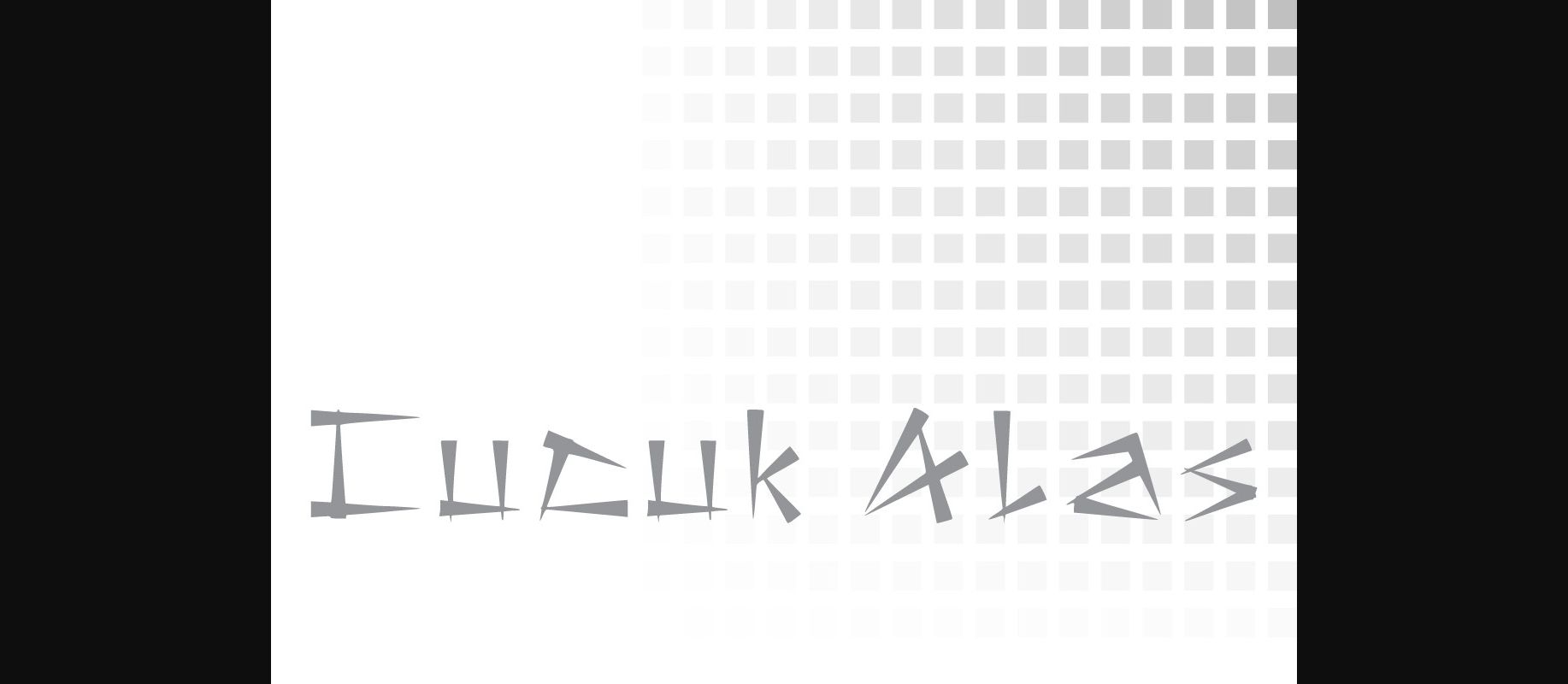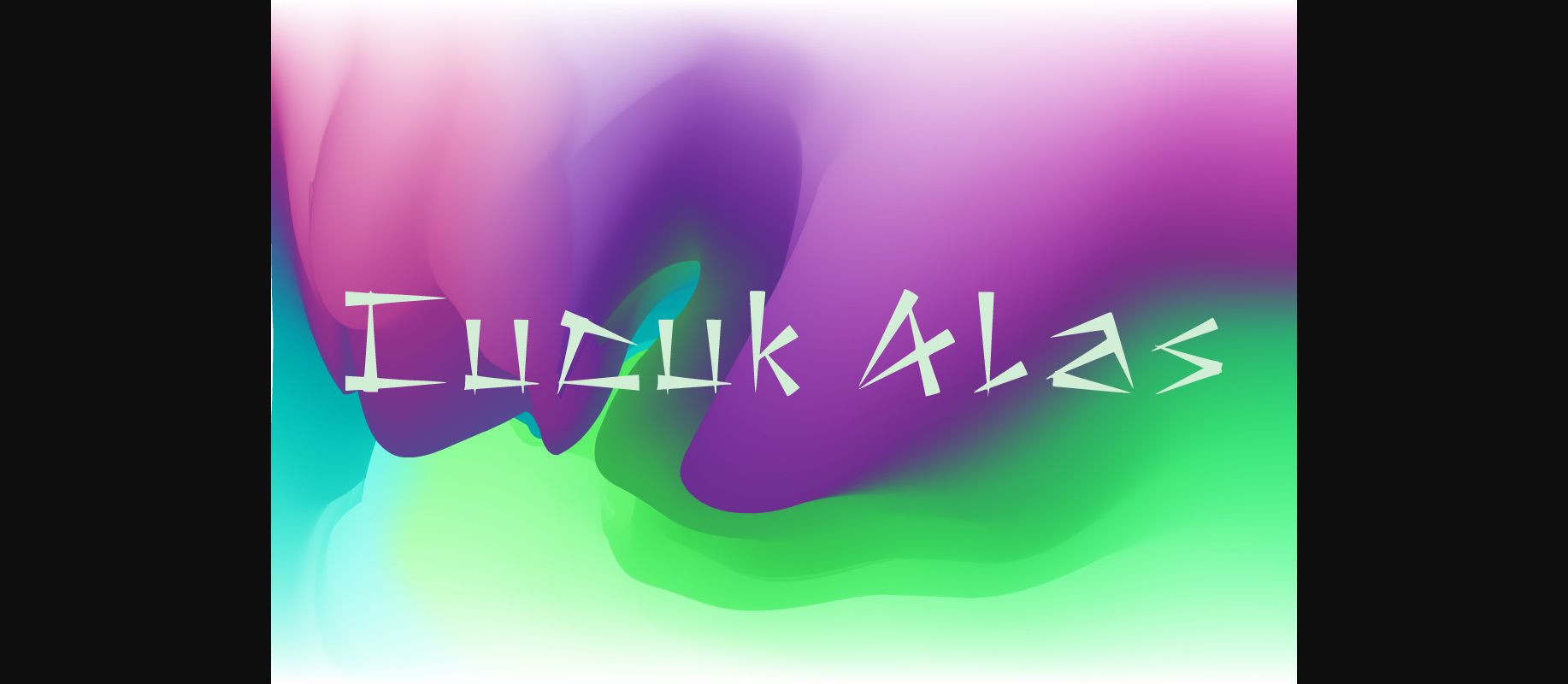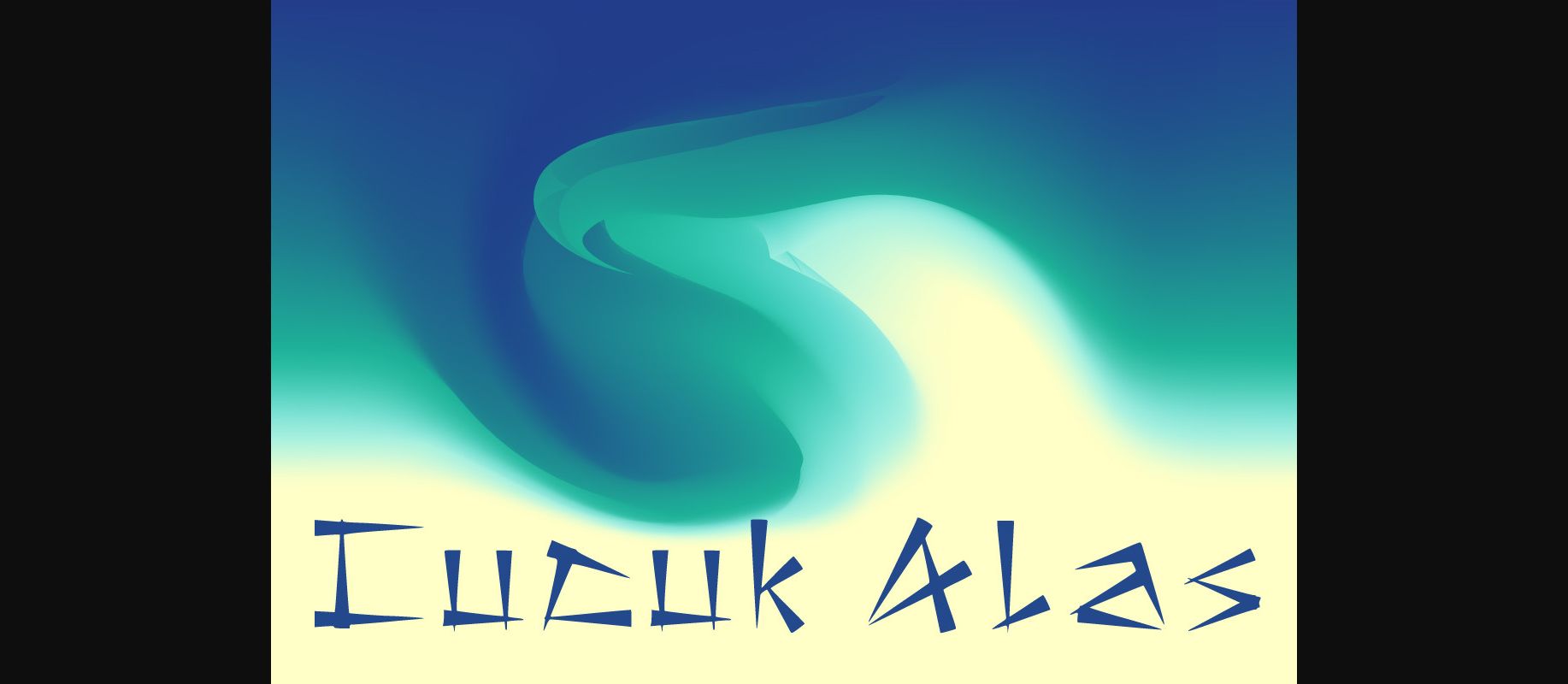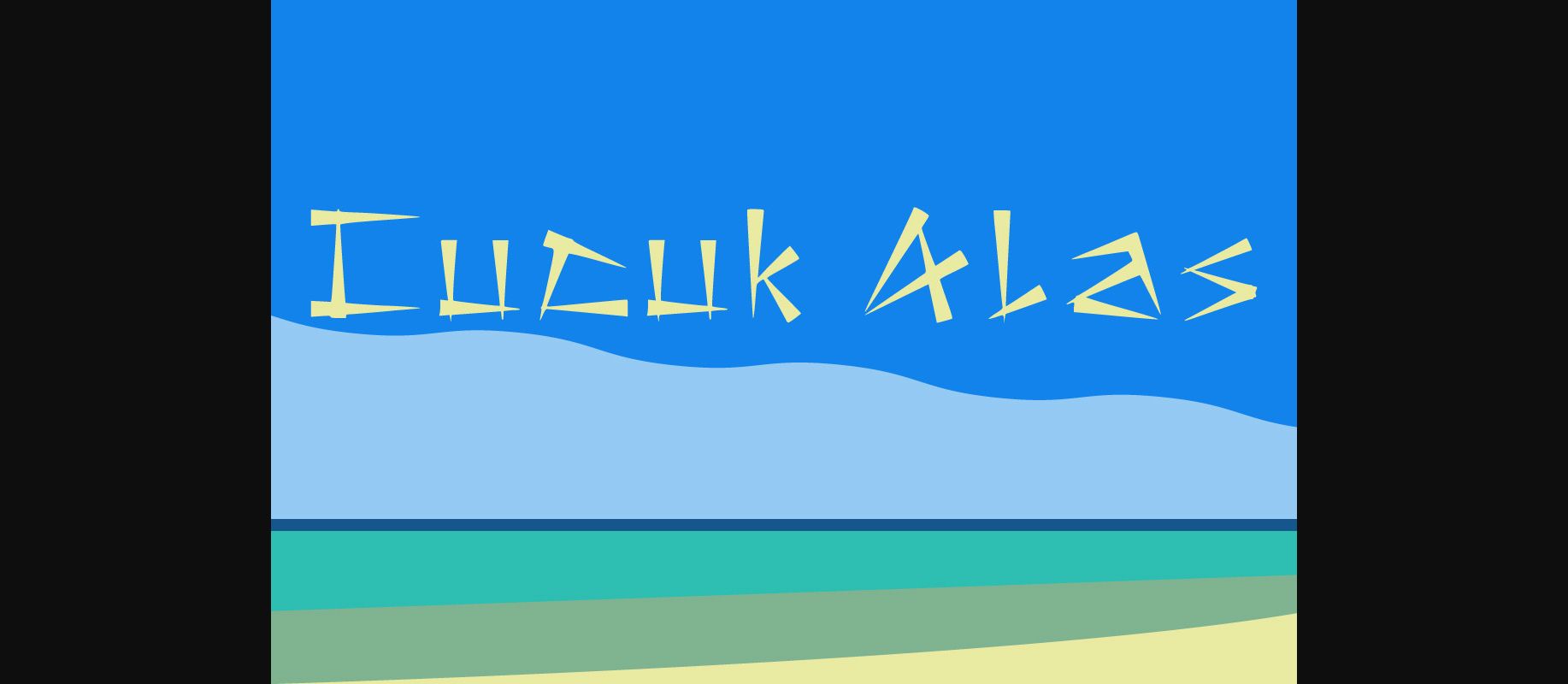
Cucuk Alas is a simple, elegant, and modern font that you can use as a logo tagline or monogram. This font is suitable for t-shirt designs too, quotes, wall art, and many more as you wish.